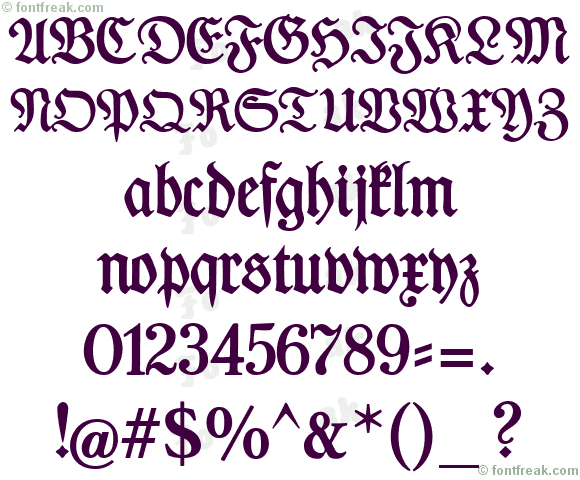
DesMalersFraktur
DesMalersFraktur is a captivating display font designed by Peter Wiegel, characterized by its unique blend of traditional Gothic influences and modern legibility. This serif typeface features sharp angles and ornate details, making it an ideal choice for projects that seek to evoke a sense of history and elegance. The stroke weight varies throughout the characters, creating a striking contrast that draws the eye, while the generous spacing ensures clarity even in longer texts.
The visual characteristics of DesMalersFraktur are marked by its decorative elements, including flourishes and intricate letterforms that pay homage to classic Fraktur styles. These features make the font particularly suitable for a range of creative applications. Graphic designers can leverage its distinctive aesthetic for wedding invitations that call for a touch of sophistication, or for movie posters that aim to convey a sense of drama and intrigue. Additionally, restaurant menus can benefit from its stylish appearance, enhancing the overall dining experience by providing a visual narrative that complements gourmet dishes. Small business owners may find it an excellent fit for branding materials, where standing out is crucial.
The target audience for DesMalersFraktur includes graphic designers, content creators, and small business owners looking to make a memorable impression with their typography. This font is not just visually appealing; it also aligns with the principles of open licensing, being offered as freeware under the terms of the GPL and OFL.
What truly makes DesMalersFraktur stand out is its ability to blend historical significance with contemporary usability. Its unique design elements and versatility in various contexts ensure that it can elevate any project, making it a valuable addition to any designer's toolkit. For those interested, the DesMalersFraktur font free download is readily available, inviting users to explore its potential in their creative endeavors.